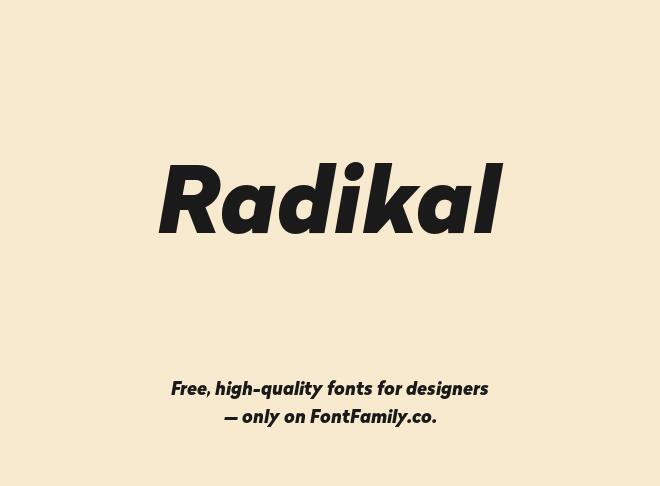
Radikal Font
Radikal Font is a geometric sans-serif typeface that exudes modern minimalism and versatility. Its sleek lines and sharp edges make it ideal for use in digital designs, branding, and print materials. The font is highly legible, making it perfect for body text, headlines, logos, and presentations. Compared to other fonts, Radikal Font stands out with its unique character shapes and perfect balance between form and function. It is a great choice for designers who value simplicity and clarity in their typographic communication. The clean, contemporary look of Radikal Font makes it a go-to option for a variety of design projects, from corporate branding to digital marketing materials. Its broad range of weights and styles provides flexibility and adaptability, ensuring it fits seamlessly into any design aesthetic.